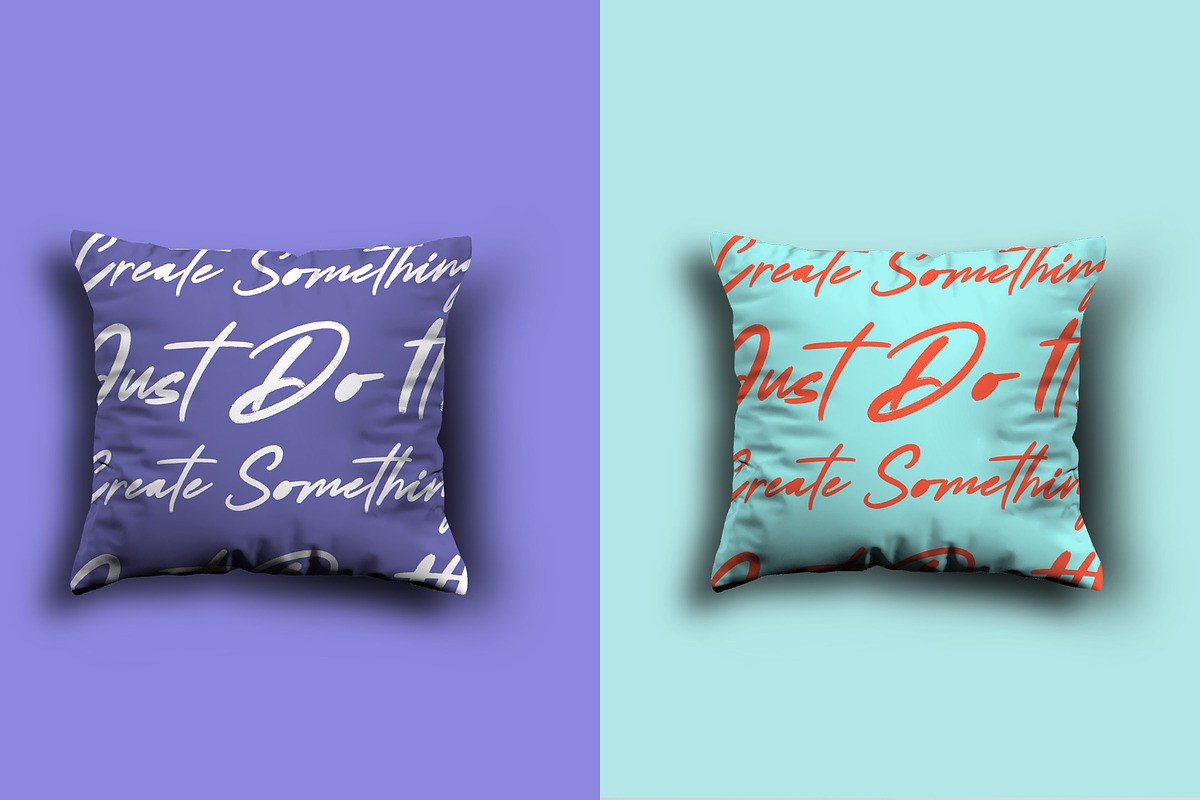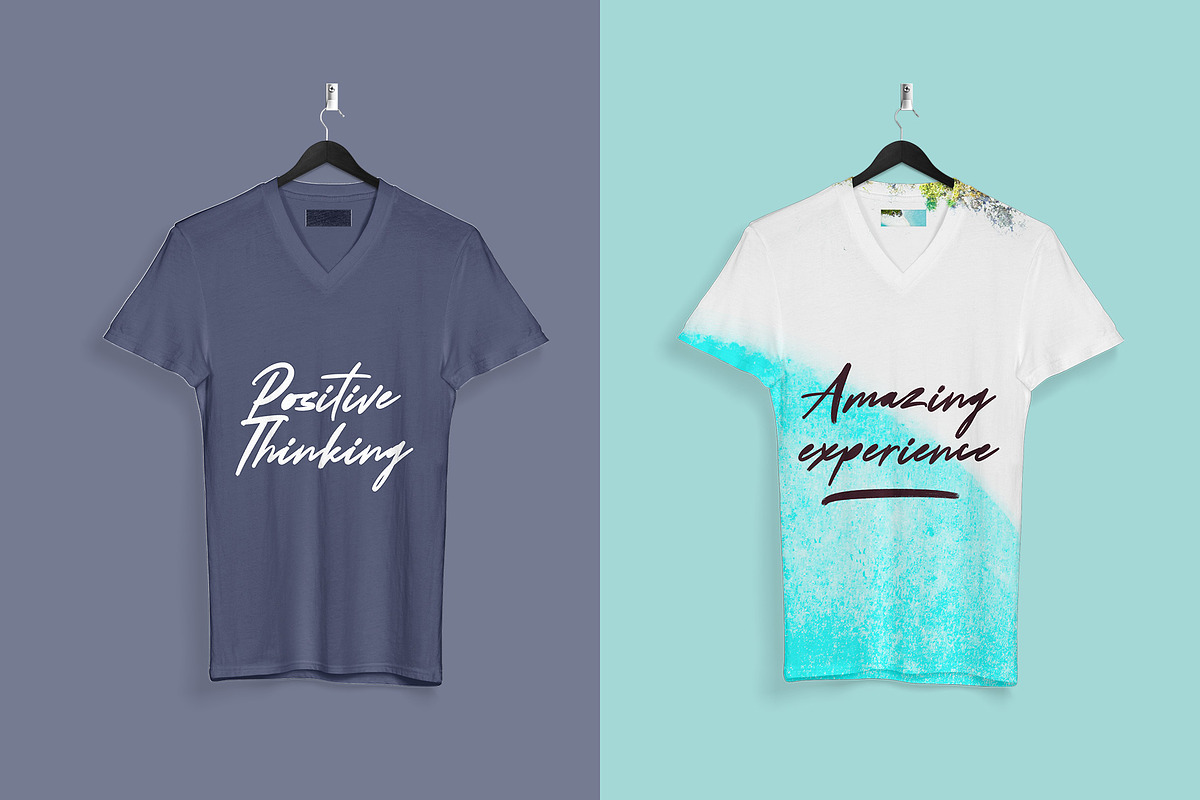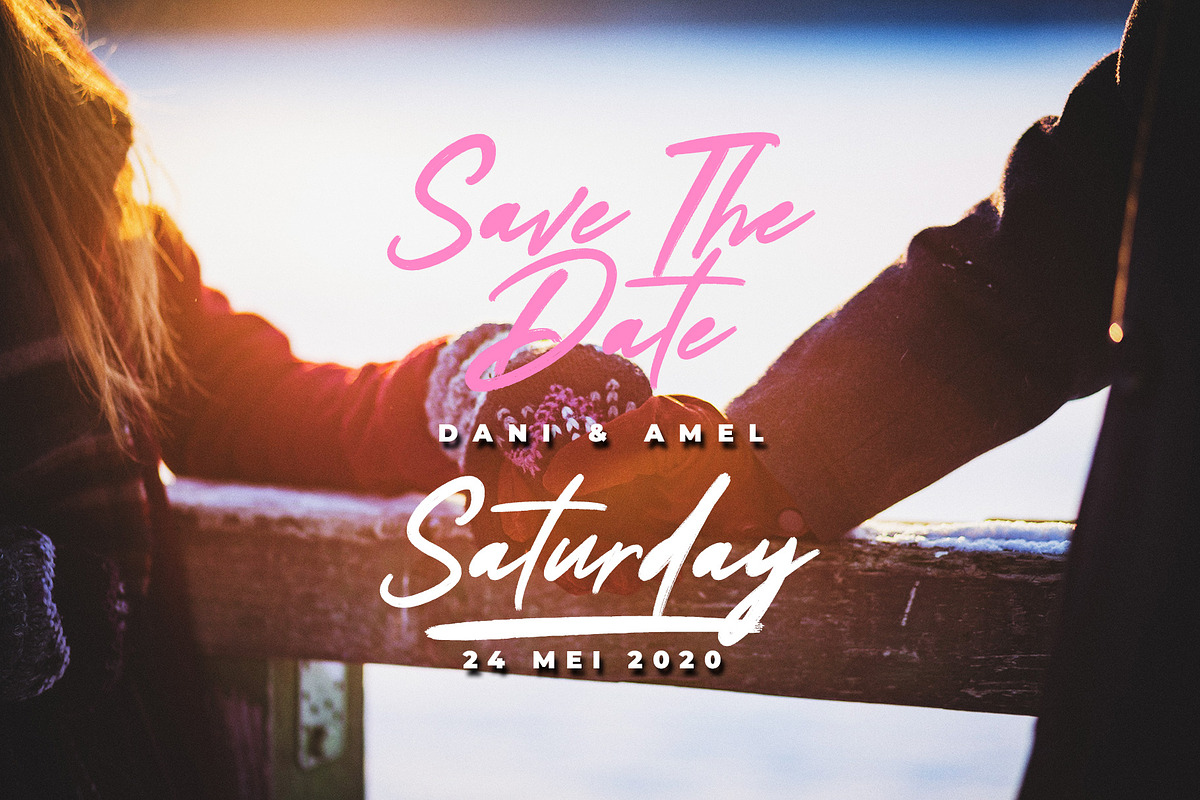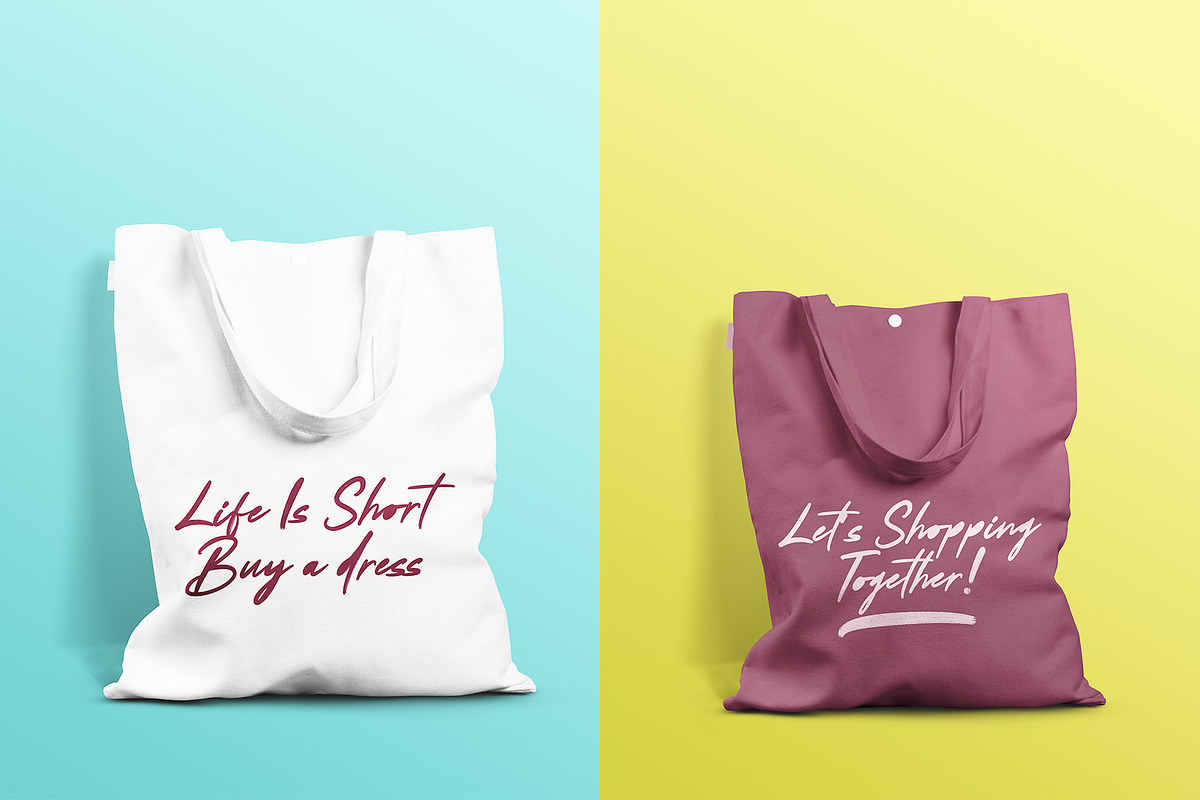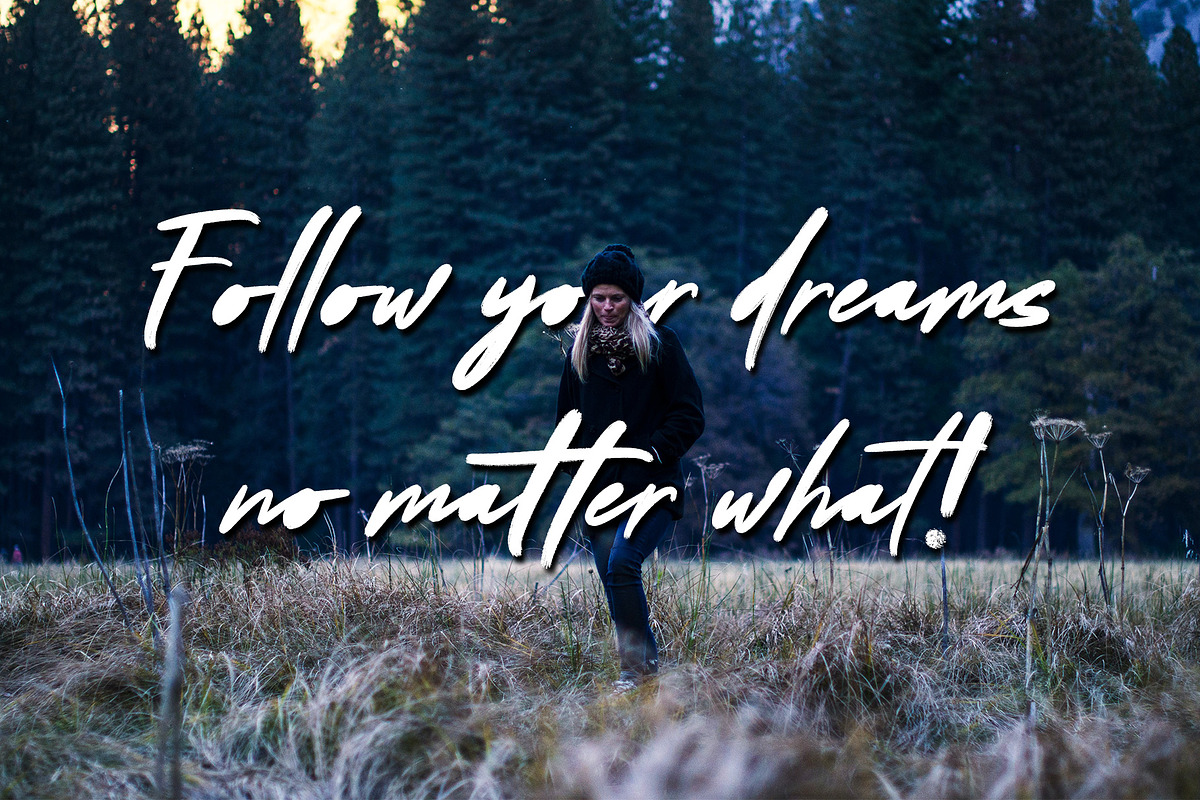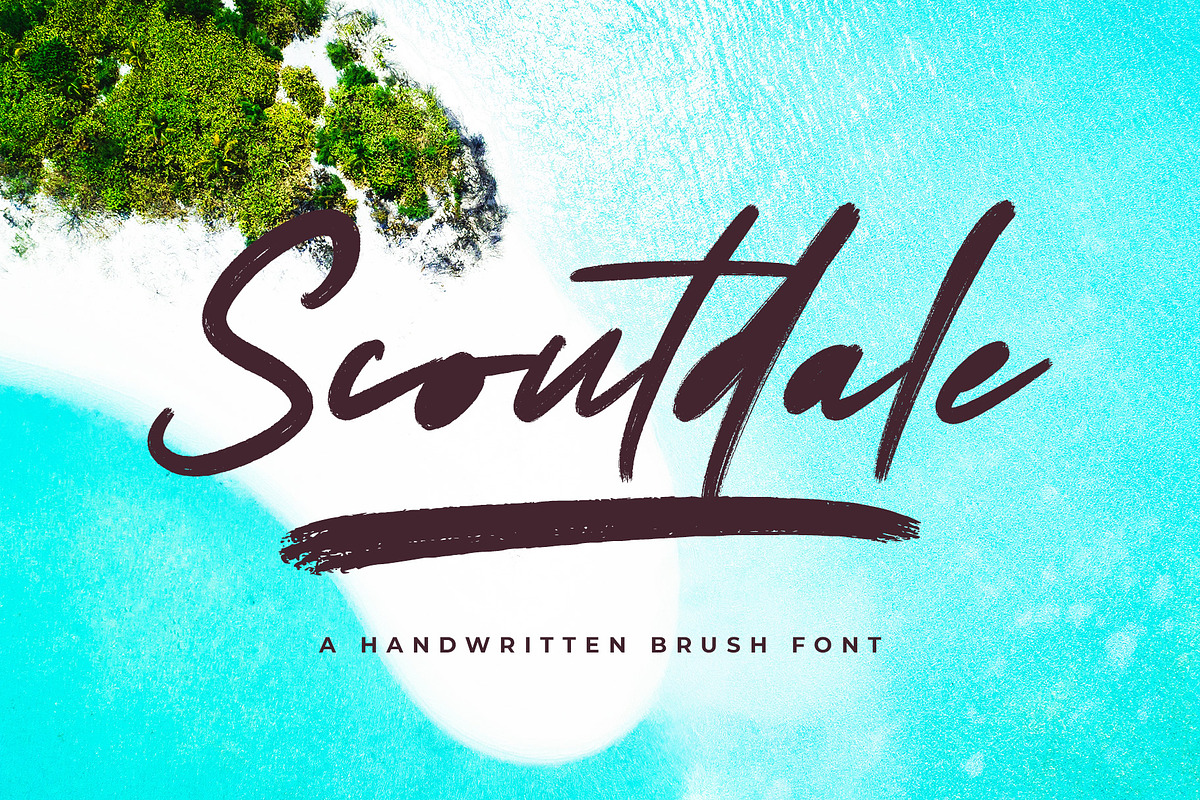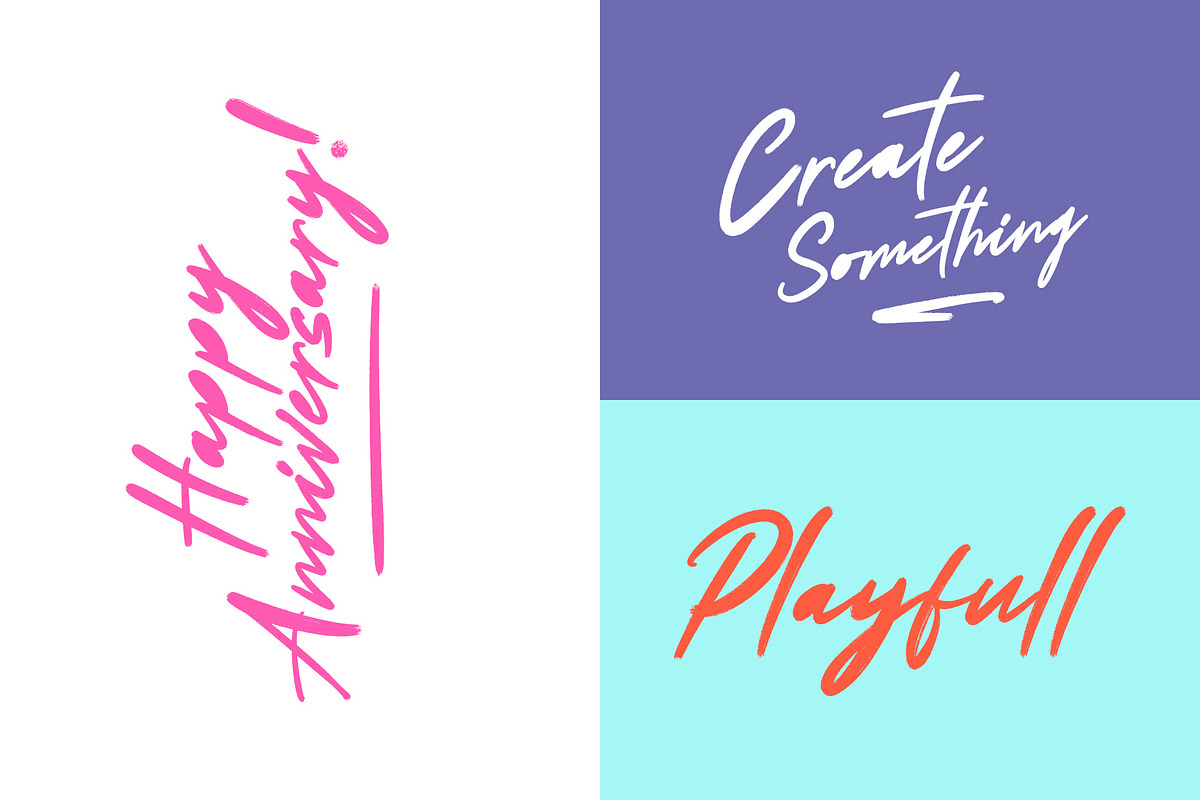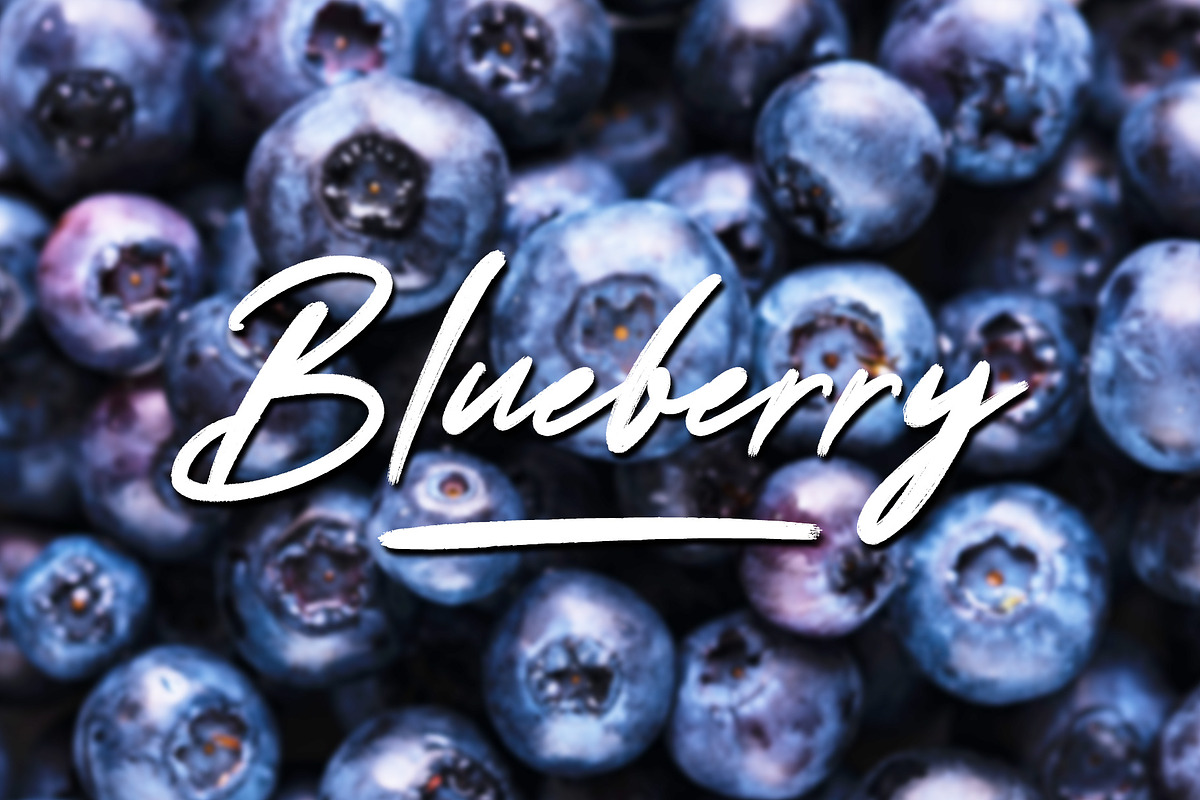
Scoutdale | Handwritten Brush Font
Hello everyone, I want to introduce the Scoutdale a Handwritten brush font with a strong texture character. Springfield is to produce a strong and consistent texture. Scoutdale can also be used for various projects such as stationery invitations, social media, logos, weddings, branding, graphic design with additional swashes. and can be combined with various types of serif fonts to perfect the project you want to work on.
Scoutdale comes with upper and lowercase Basic Characters, Numbers, Marks and Punctuation. MultiLanguages Support. As a feature Scoutdale also comes with Ligatures and Swashes to make your text pop.